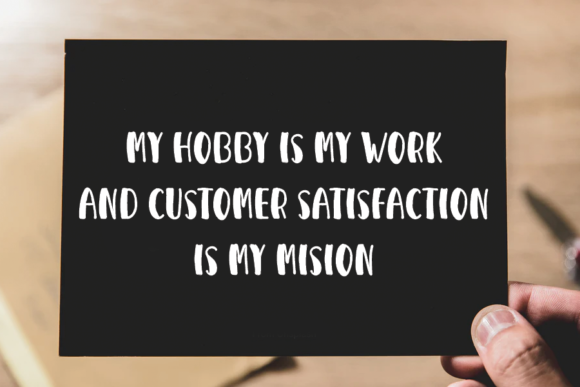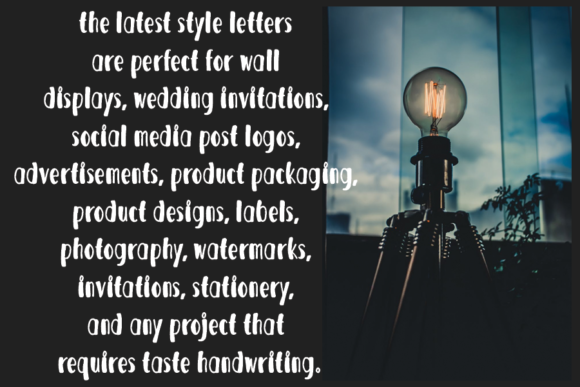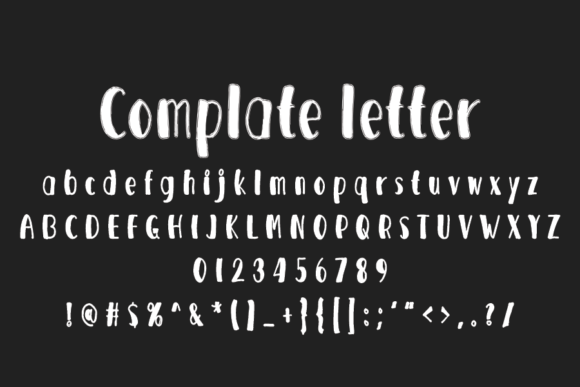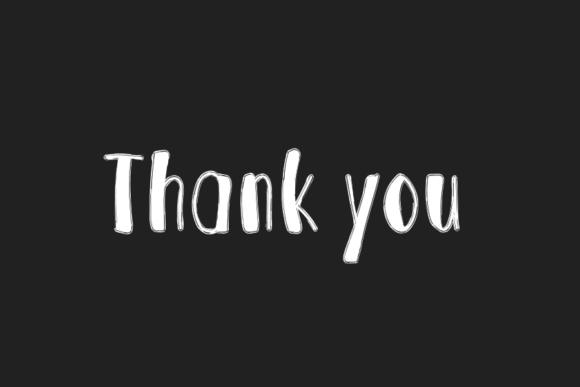
Introducing Greatbrush Font: The Perfect Addition to Your Design Arsenal
Are you tired of using the same old fonts in your designs? Look no further! Greatbrush Font is here to shake things up and add a dash of joy to your creative projects. This cute and quirky display font is sure to make your designs stand out from the crowd.
The Characteristics of Greatbrush Font
Greatbrush Font is a display font that boasts a unique and playful personality. Its irregular shapes and bold lines give it a hand-painted feel that’s perfect for adding a touch of whimsy to your designs. The font’s quirky nature makes it ideal for use in titles, headings, and other display text.
Why Designers and Crafters Love Greatbrush Font
So, what makes Greatbrush Font so special? Here are just a few reasons why designers and crafters are falling in love with this beautiful display font:
- Unique and Playful Personality: Greatbrush Font has a one-of-a-kind personality that’s sure to add a touch of joy to your designs.
- Versatile: This font can be used in a variety of design projects, from digital graphics to print materials.
- Easy to Read: Despite its playful nature, Greatbrush Font is still easy to read, making it perfect for use in titles and headings.
- High-Quality: Greatbrush Font is a high-quality font that’s been carefully crafted to ensure that it looks great in any design.
How to Use Greatbrush Font in Your Designs
Now that you’ve fallen in love with Greatbrush Font, it’s time to learn how to use it in your designs. Here are a few tips to get you started:
- Use it as a Title Font: Greatbrush Font is perfect for use in titles and headings. Its bold and playful nature makes it sure to grab attention.
- Add it to Your Digital Graphics: Greatbrush Font is a great addition to any digital graphic, from social media posts to blog graphics.
- Use it in Print Materials: This font is also perfect for use in print materials, such as flyers, brochures, and posters.
- Experiment with Different Colors: Greatbrush Font looks great in a variety of colors. Experiment with different colors to find the one that works best for your design.
The Benefits of Using Greatbrush Font
So, what are the benefits of using Greatbrush Font in your designs? Here are just a few:
- Stand Out from the Crowd: Greatbrush Font is a unique and playful font that’s sure to make your designs stand out from the crowd.
- Add a Touch of Joy: This font is sure to add a touch of joy to your designs, making them more engaging and fun to look at.
- Increase Engagement: By using Greatbrush Font in your designs, you’re sure to increase engagement and grab the attention of your audience.
- Improve Brand Recognition: A unique and playful font like Greatbrush Font can help to improve brand recognition and make your brand more memorable.
In conclusion, Greatbrush Font is a cute and quirky display font that’s sure to add a touch of joy to your designs. Its unique and playful personality makes it perfect for use in titles, headings, and other display text. With its versatility, ease of use, and high-quality design, Greatbrush Font is a must-have for any designer or crafter looking to take their designs to the next level.